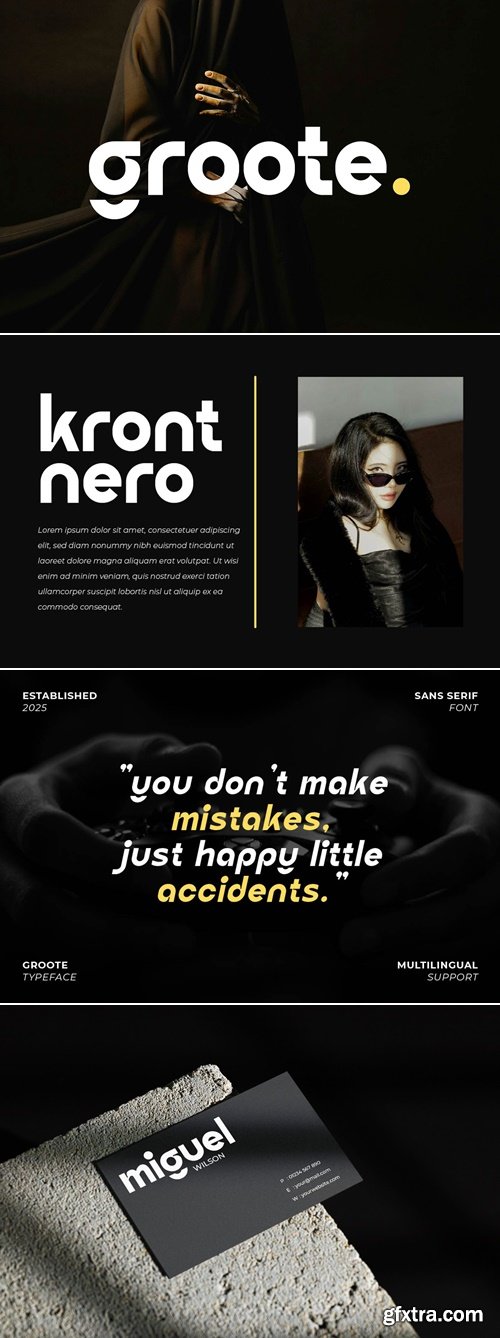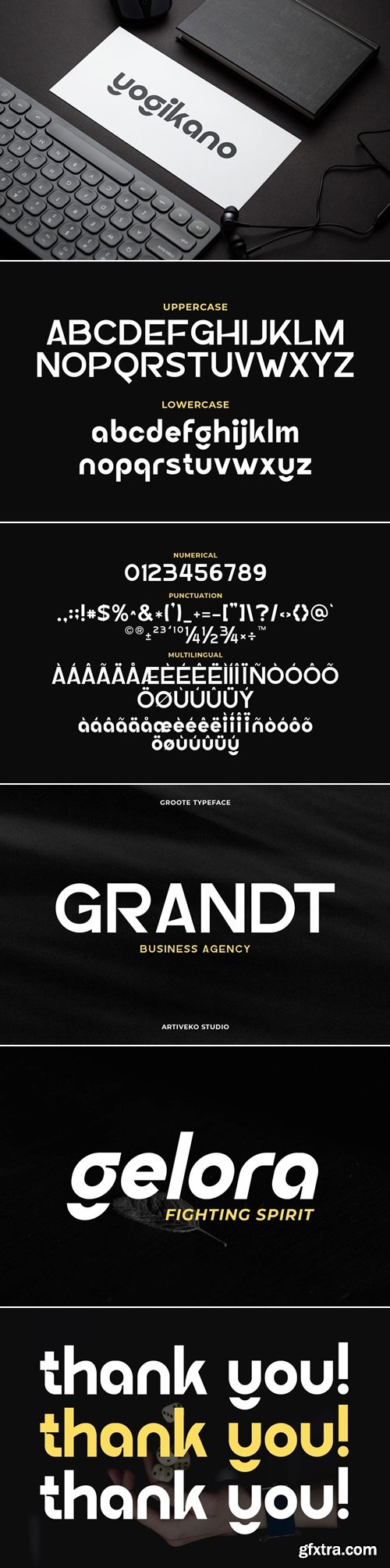
CreativeMarket - Groote - Geometric Sans Logo Font 291776827
- Groote is an elegant and modern sans serif typeface designed for sophisticated logo design and premium branding. With its sleek letterforms, graceful proportions, and timeless minimalism, Groote delivers a refined aesthetic that works beautifully across fashion labels, luxury products, editorial layouts, and digital platforms.